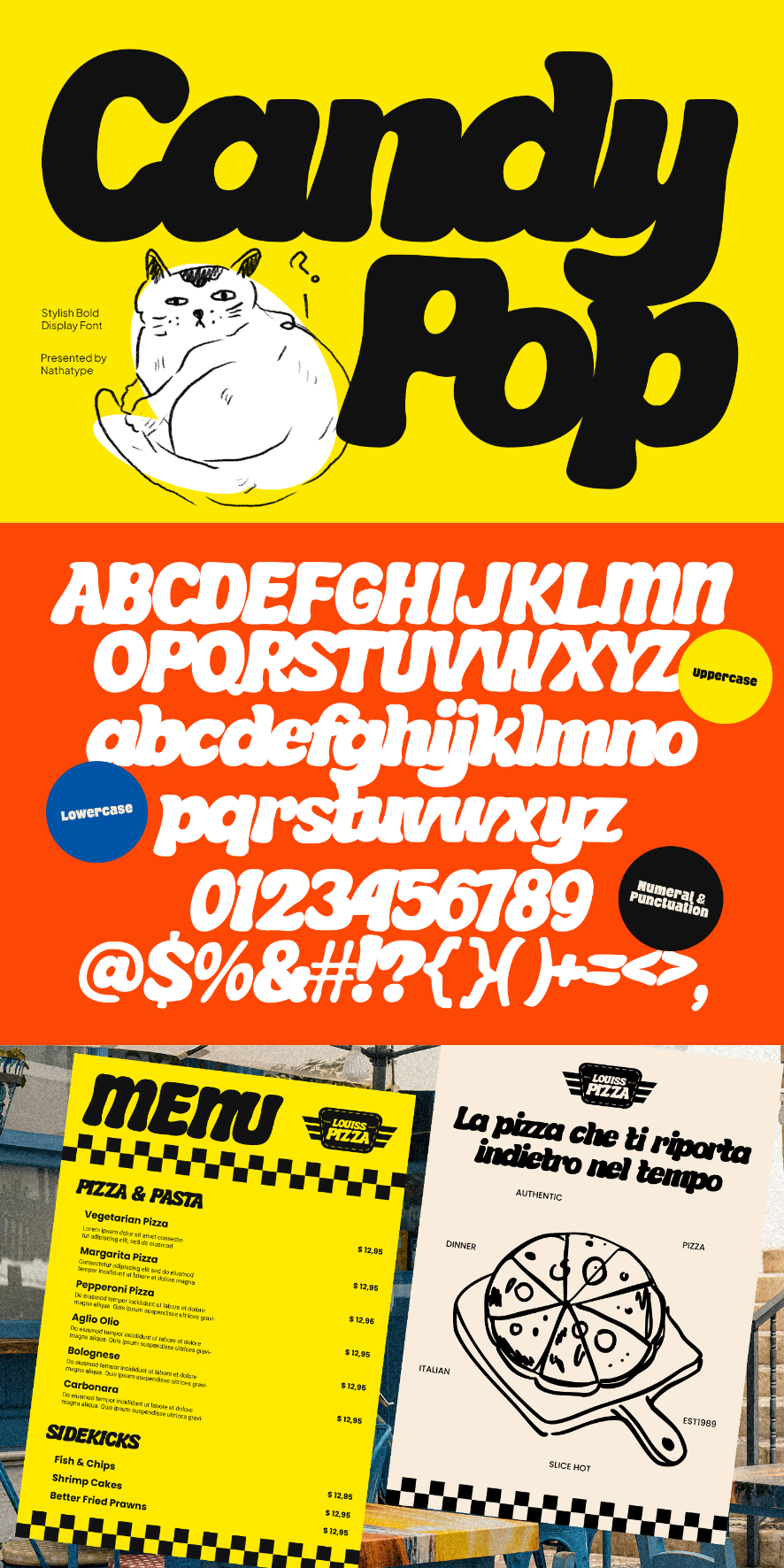
Candy Pop Font
About Candy Pop
Candy Pop is a stylish display font designed to deliver bold visual impact. The bold structure of Candy Pop makes every letter stand out, while the low contrast keeps the design smooth and cohesive. This balance allows the font to shine in large sizes without feeling overwhelming. Candy Pop is perfect for designers who want eye-catching typography that feels contemporary, playful, and full of personality. In addition, enjoy the features here.
Candy Pop fits in logos, quotes, branding, posters, and many more designs. Find out more ways to use this font by taking a look at the font preview.